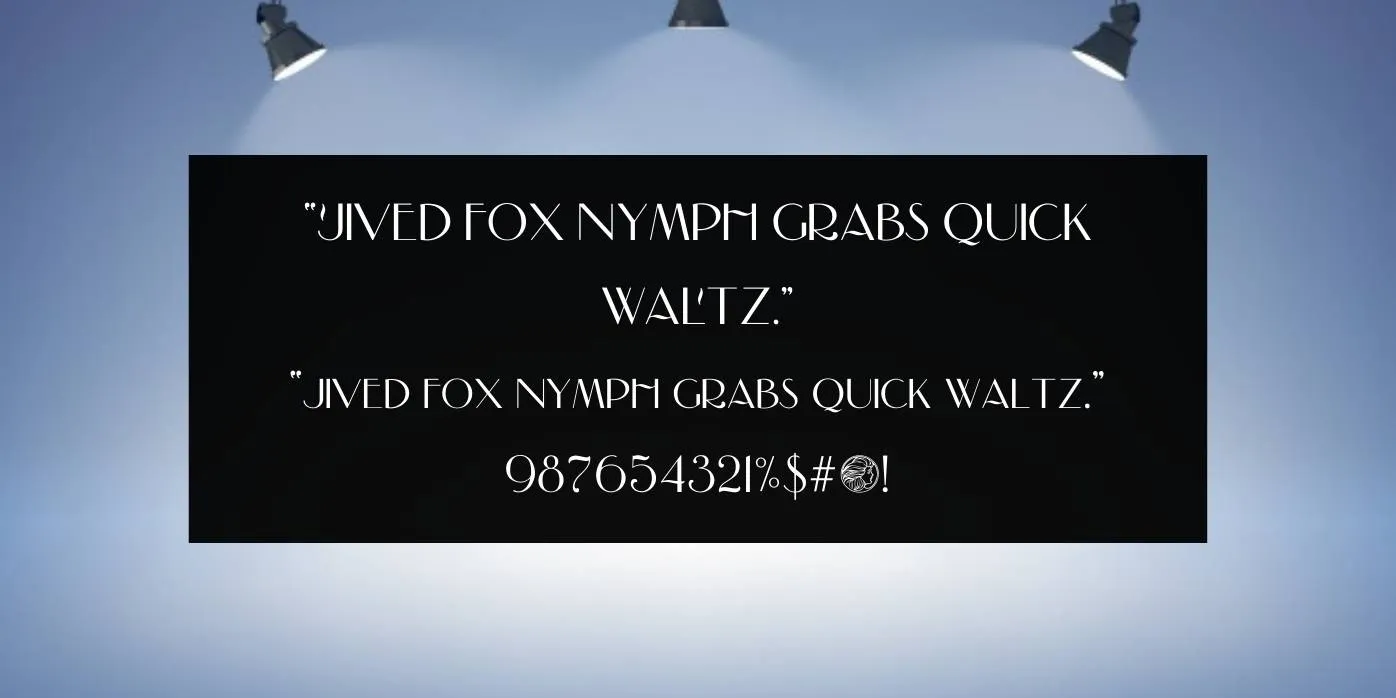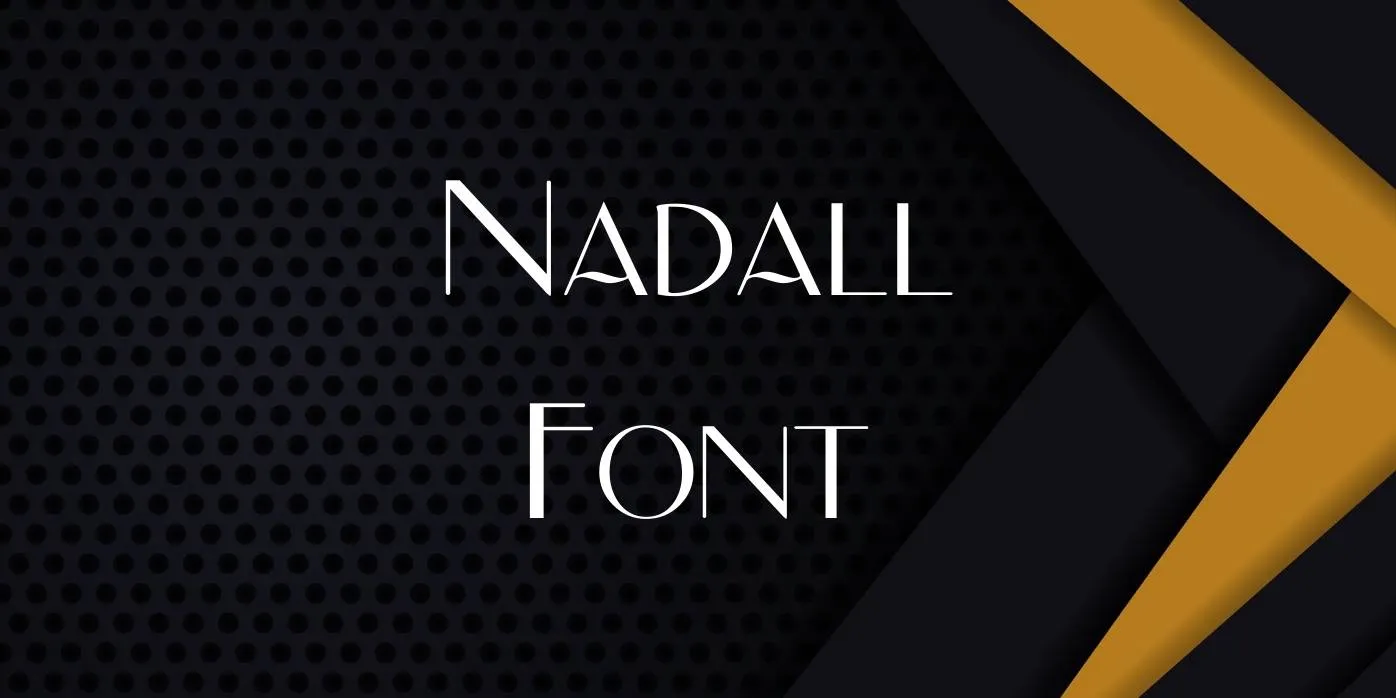
Nadall Font
Nadall Font is a fancy typeface that was designed by Nadall Binder in 2013. The font is named after Nadall Binder, and it is inspired by the classic Didone typefaces of the 19th century. This Font has a unique design that makes it stand out from other fonts in the same genre. This Font was created to provide an updated, contemporary feel to classic sans-serif fonts.
The strong verticals and clean horizontal lines give the typeface a modern edge. If you want to compare this typeface style with White charter font then it would be the best combination for you. The font glyph has a horizontal line that extends from the left side of the letterform, creating a distinct ‘N’ shape. This horizontal line is a nod to the classic Didone typefaces, which often featured a similar design element.